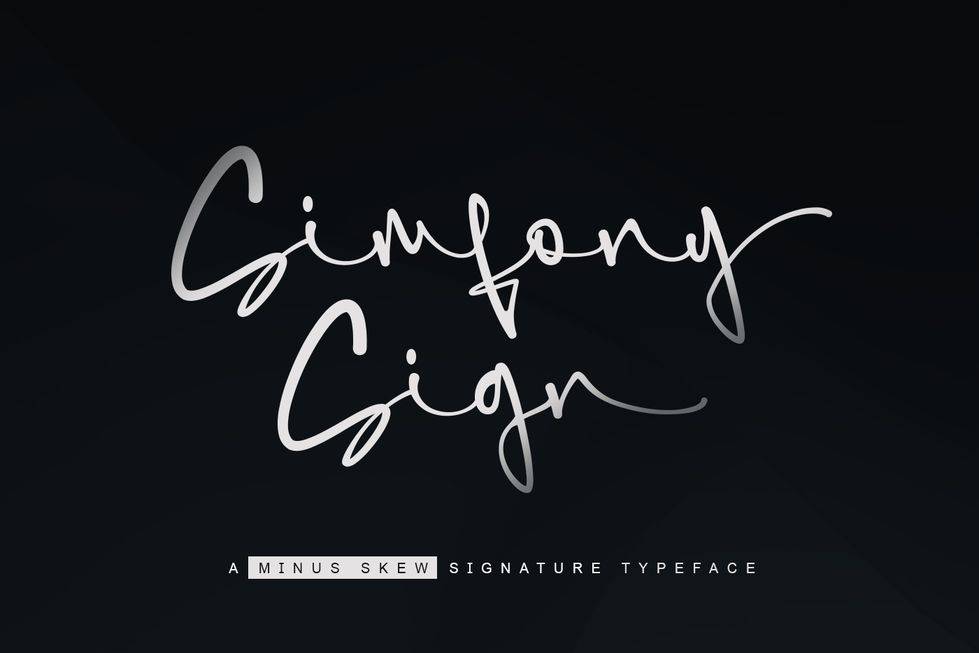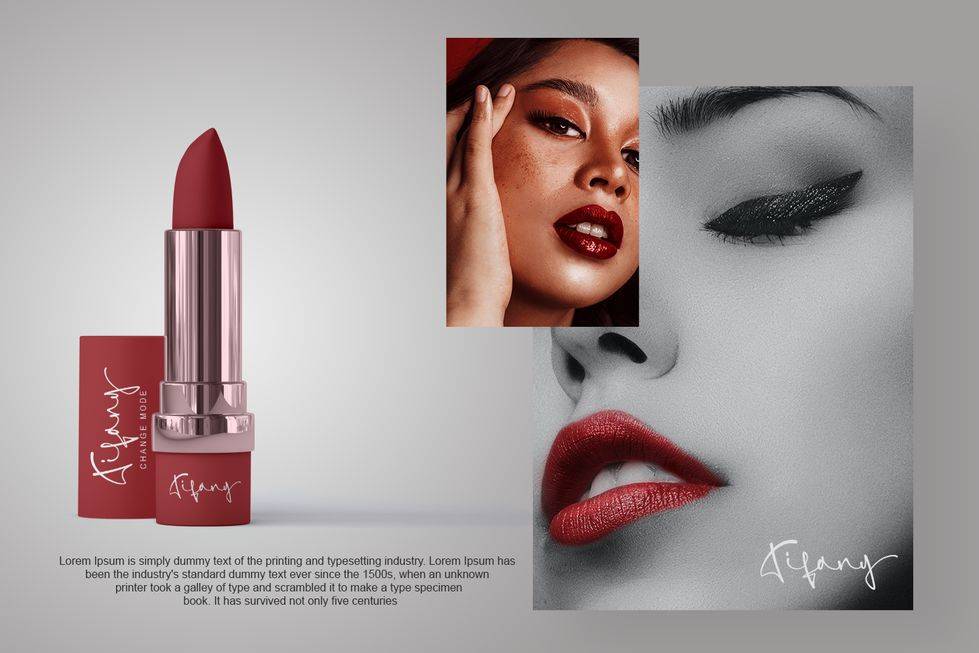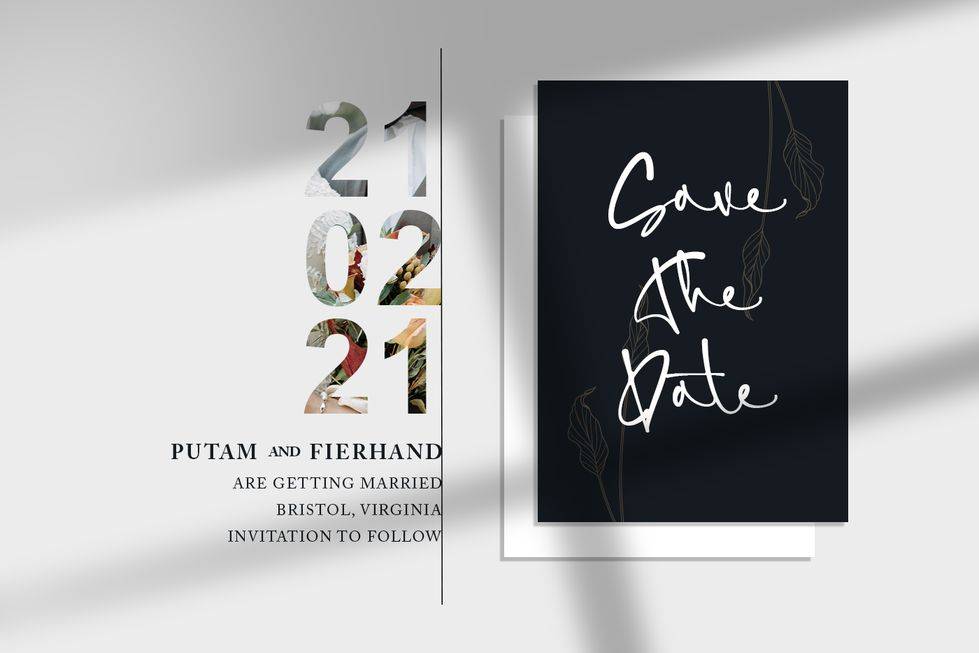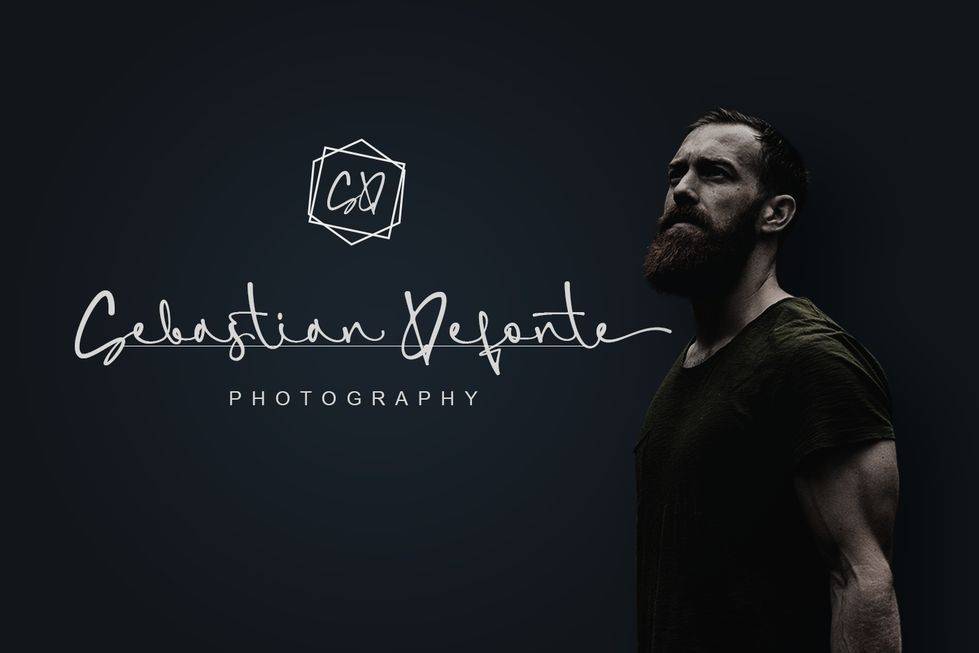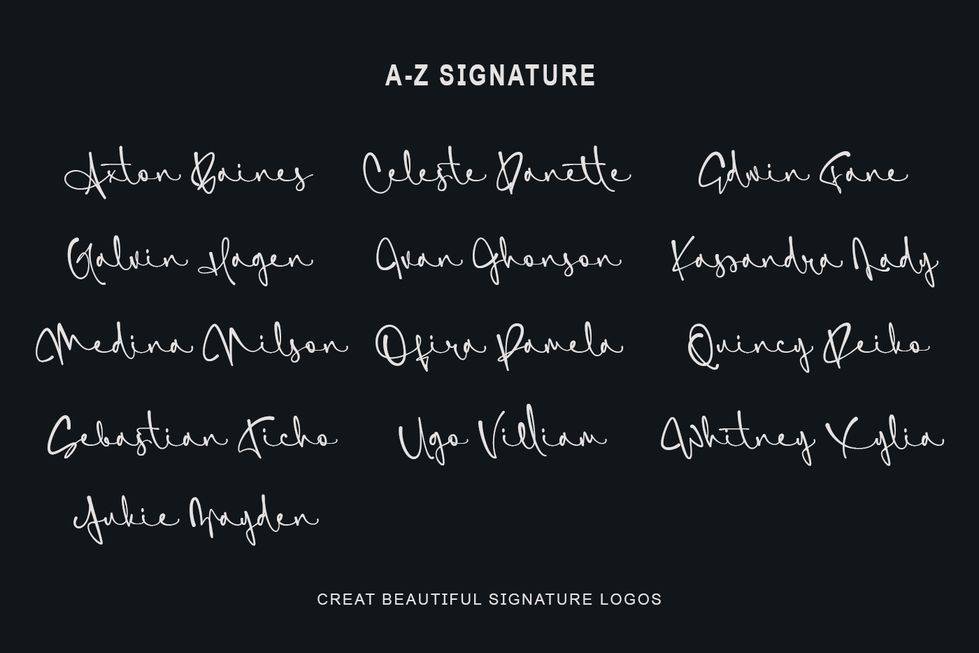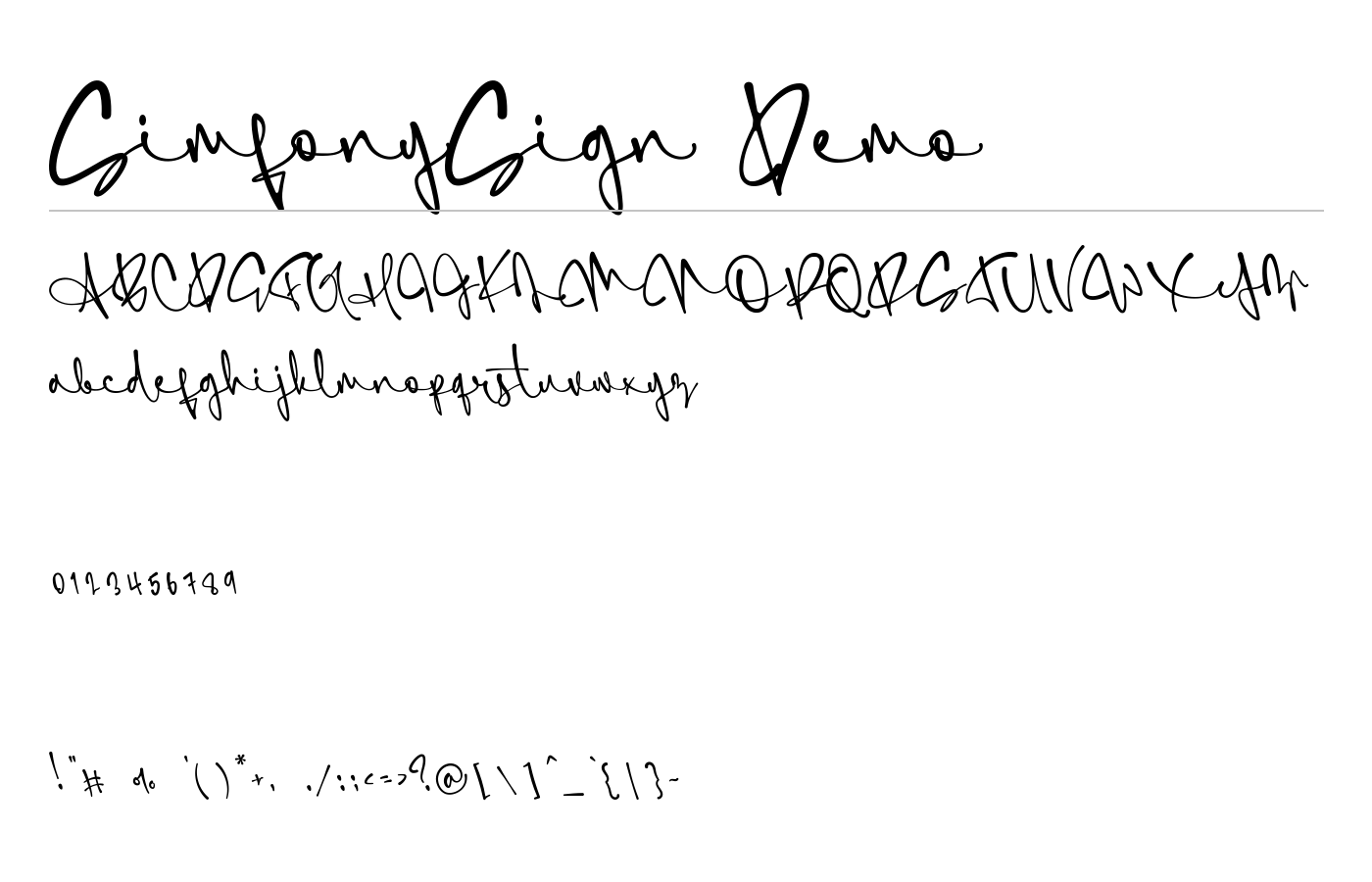
SimfonySign is a playful and lively handwritten font with thin, loosely connected strokes that mimic casual, spontaneous handwriting. Its irregular letterforms and uneven spacing create an energetic, informal look, making it ideal for creative projects, personal branding, or any design needing a charming, approachable touch. This font works best in headlines, logos, and social media where a unique, expressive style is desired.
SimfonySign Font
About SimfonySign Font